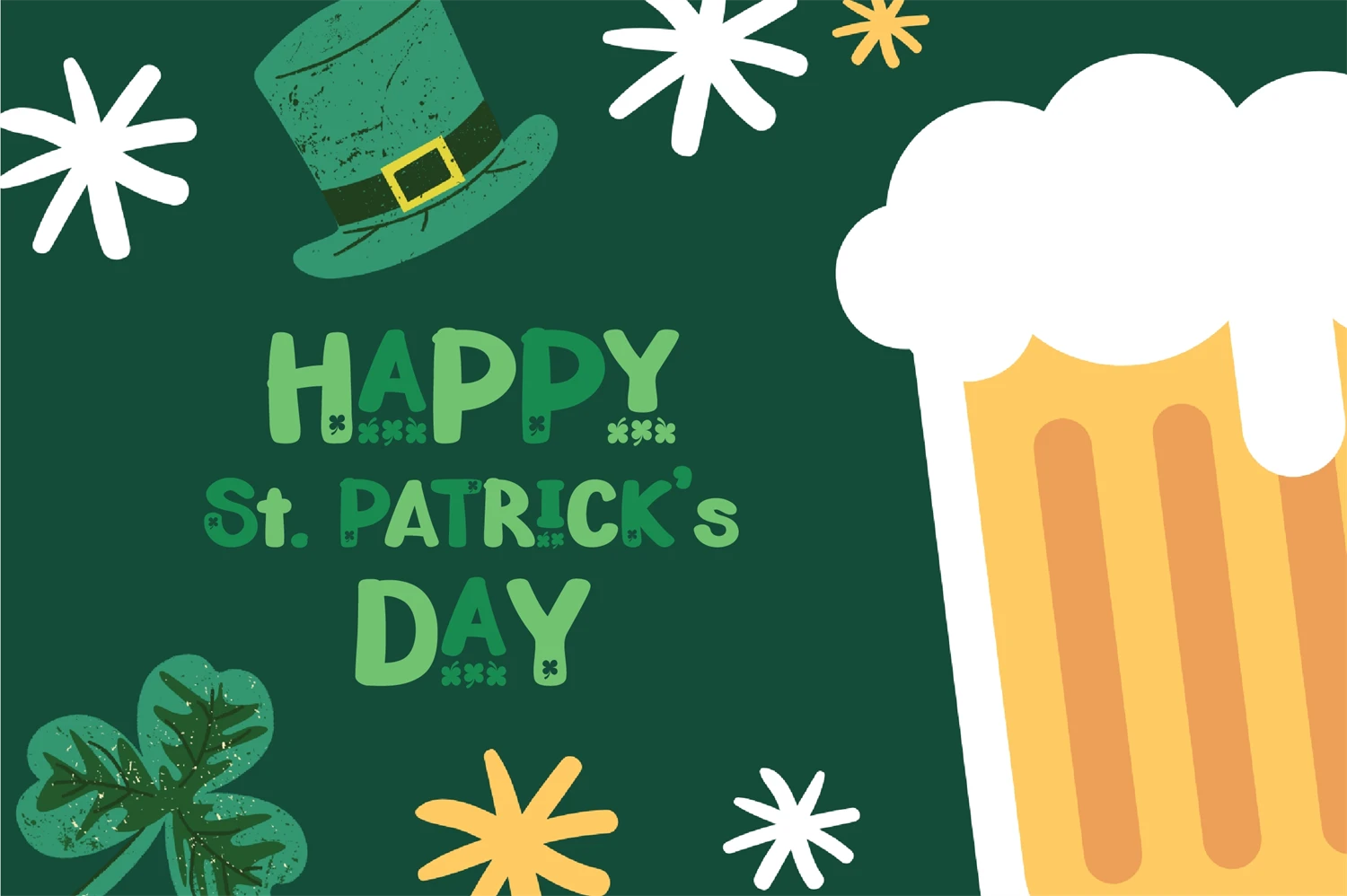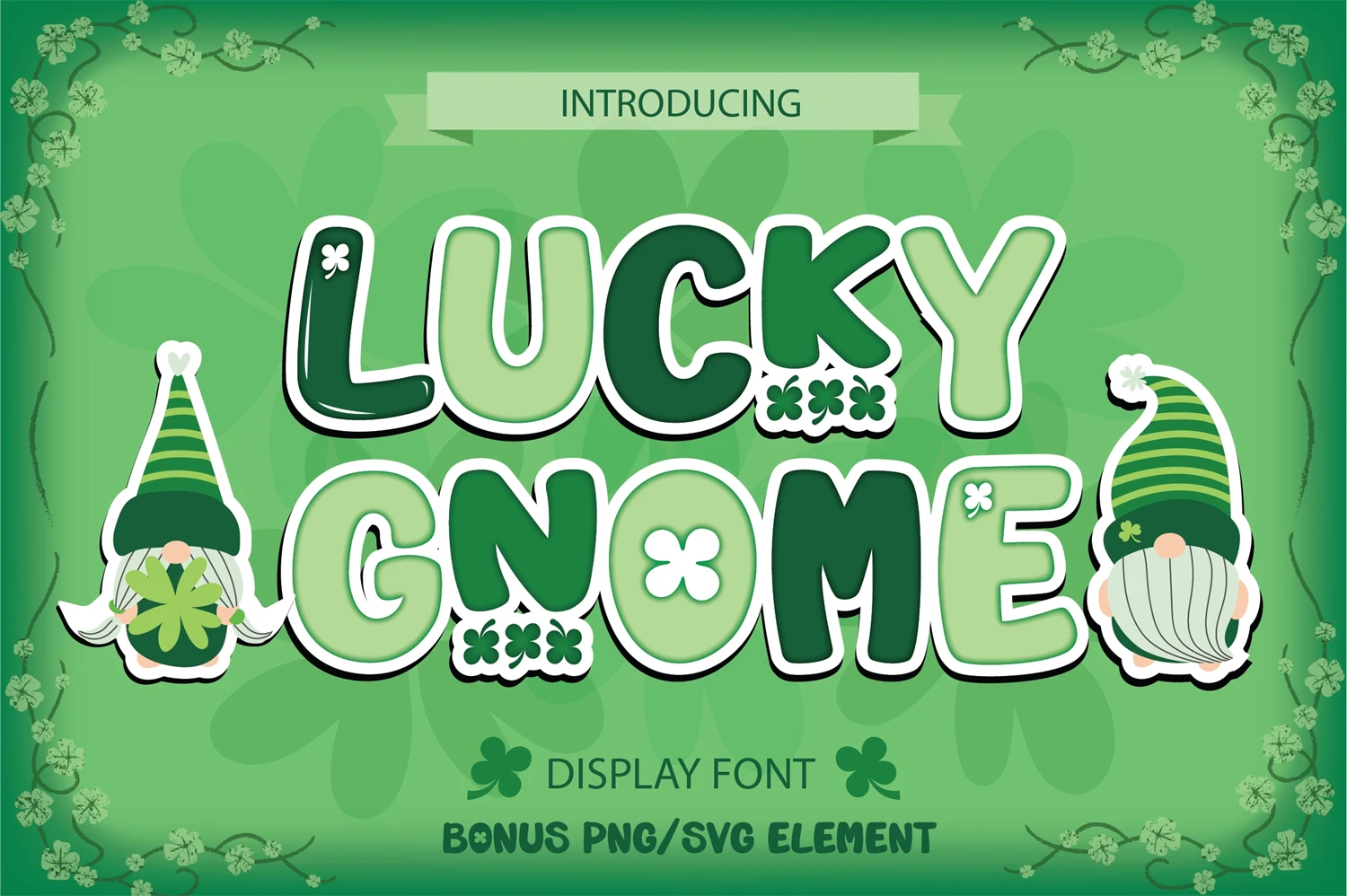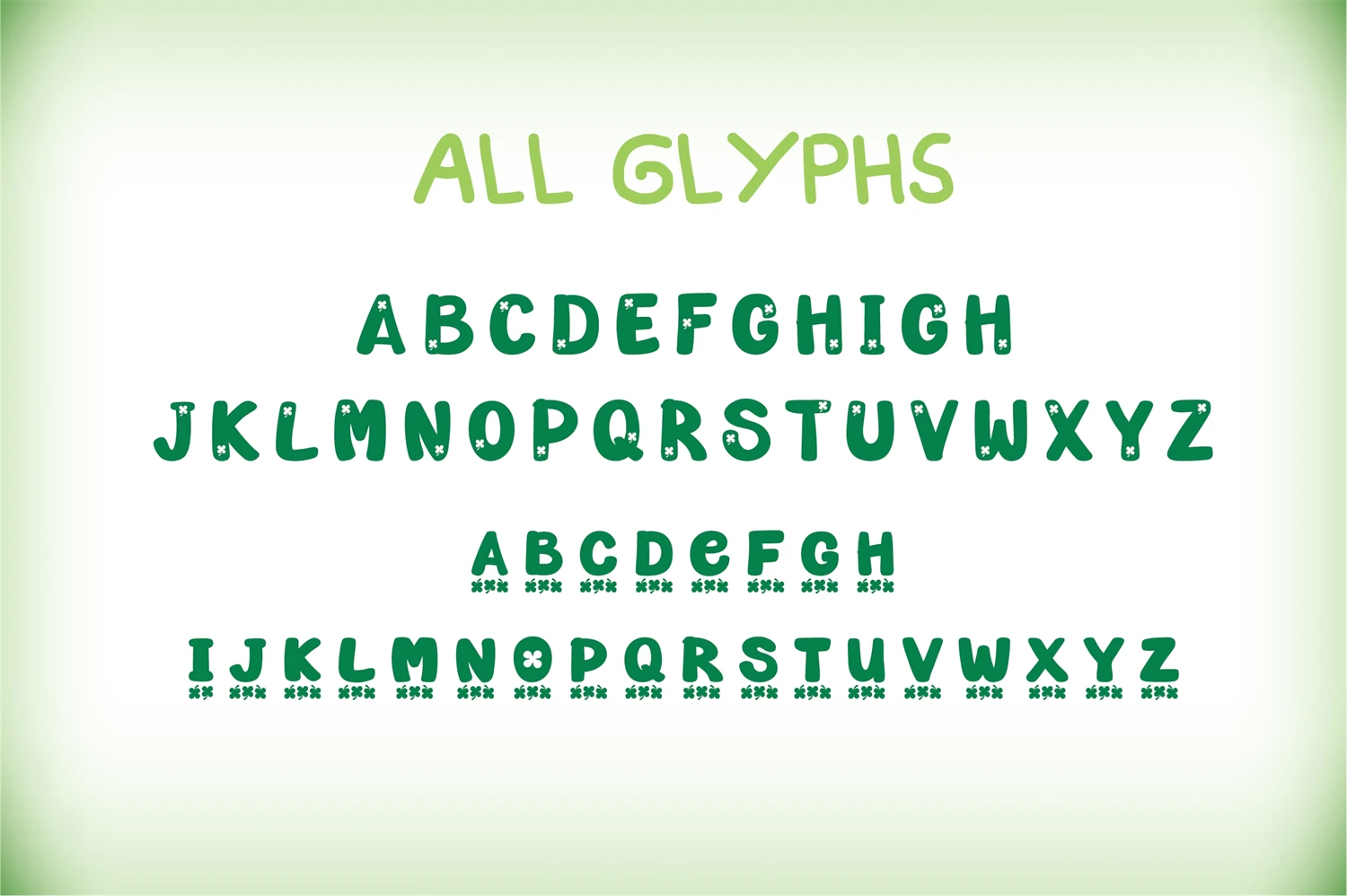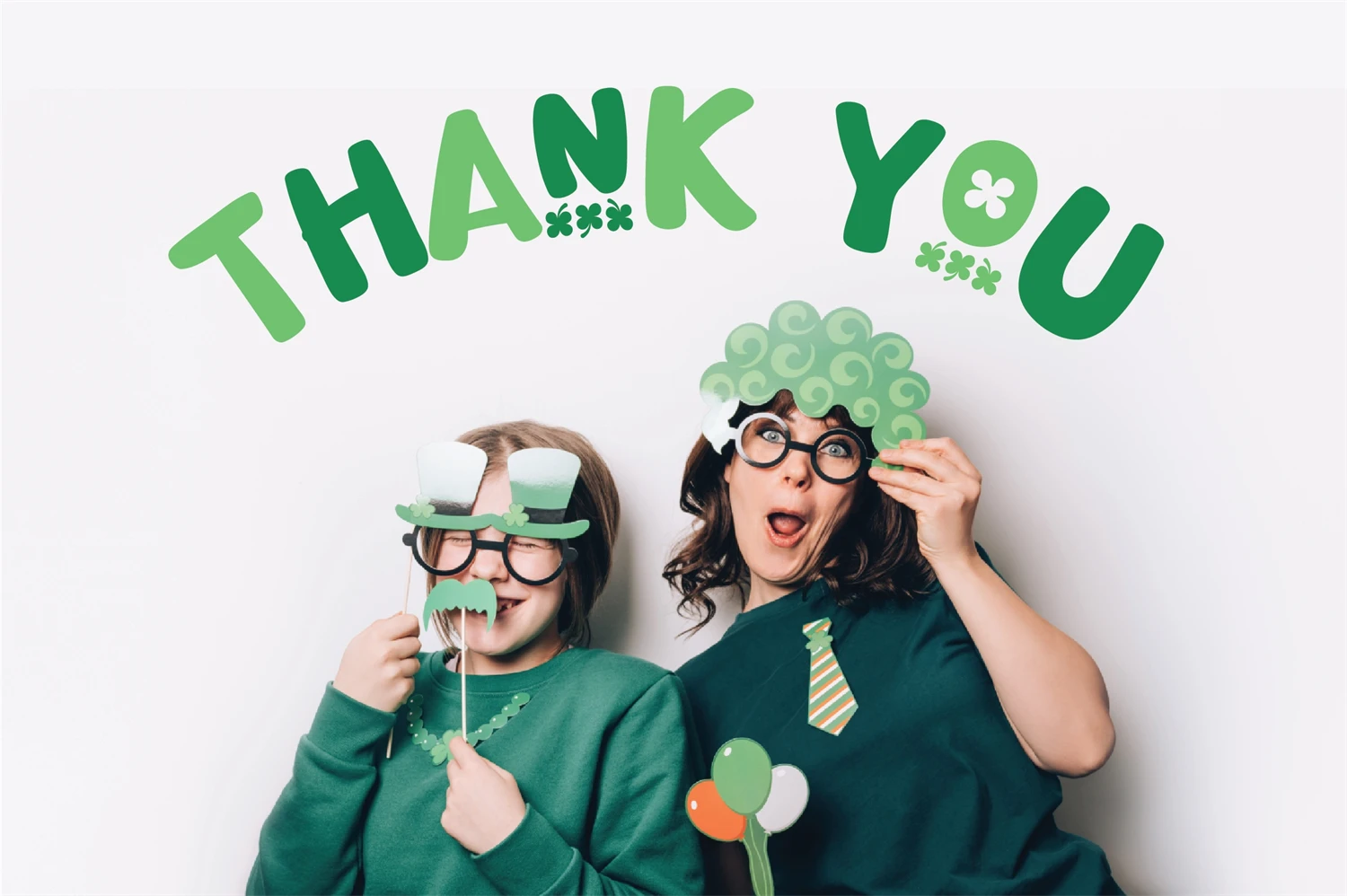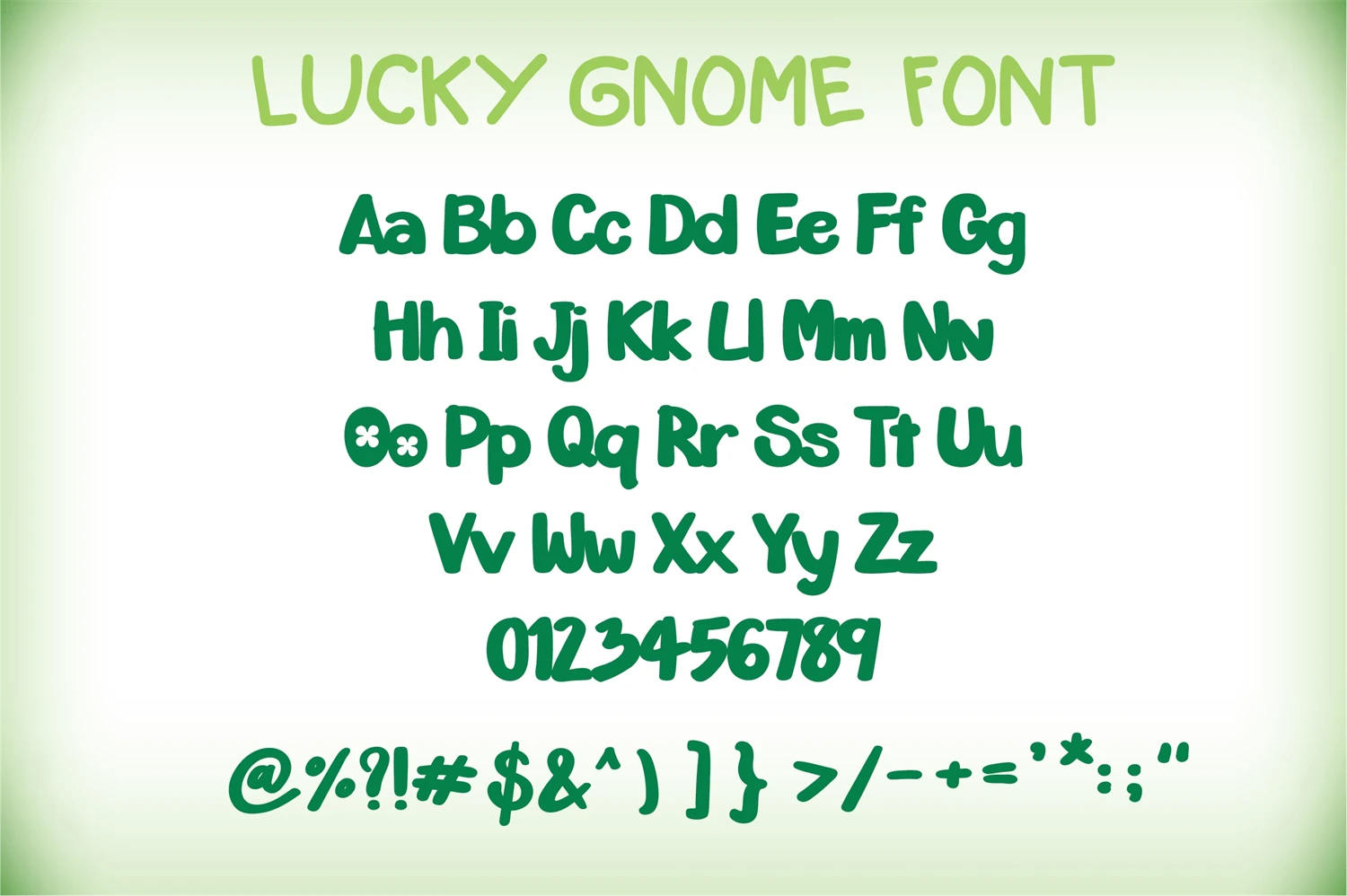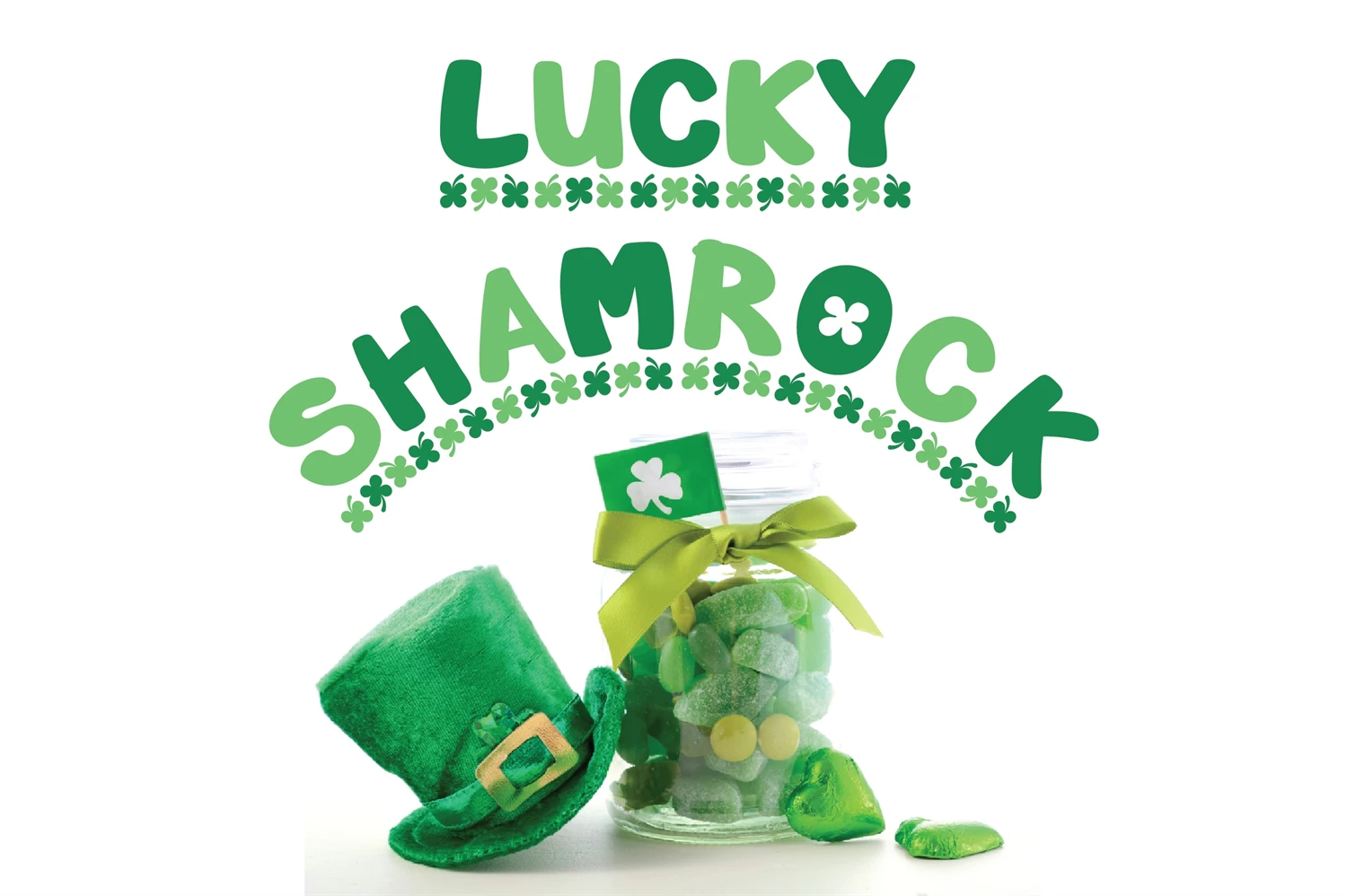
Get ready for St Patricks Day with this fun decorative display font! Lucky Gnome lowercase letters are decorated with clovers, so it will definitely bring some luck and cheer to your designs.